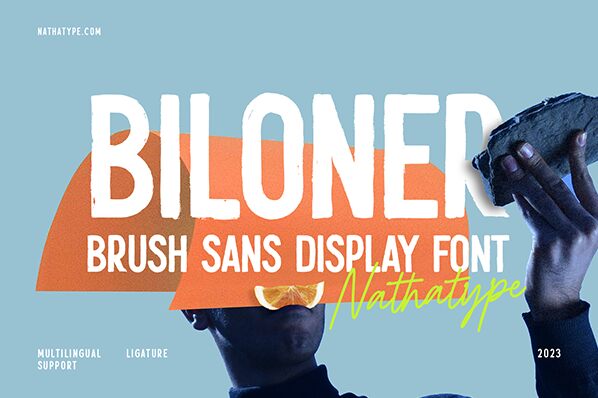
Biloner font by Nathatype is a distinctive display font characterized by its eroded, textured appearance. With its simple, condensed sans-serif base forms, it presents a modern and strong aesthetic. The stylized brush touches create a rough texture that adds dimensions and visual interest to the clean lines of this versatile typeface.
This free eroded font’s distressed appearance offers contemporary appeal and casual vibes for various design uses such as posters, album covers, magazine layouts, apparel designs, product packaging, branding projects, website headers, advertisements, social media graphics, and event invitations.
Features:
- Ligatures
- Multilingual support
- PUA encoded
- Numerals and punctuation
Biloner’s flexibility enables it to adapt to various design styles-be they modern and contemporary or bold and creative. It is well-suited for a range of design contexts including titles, posters, book covers, and branding materials. Discover more ways to utilize this font by exploring the font preview.
Features:
- Ligatures
- Stylistic sets
- Multilingual support
- PUA encoded
- Numerals and punctuation